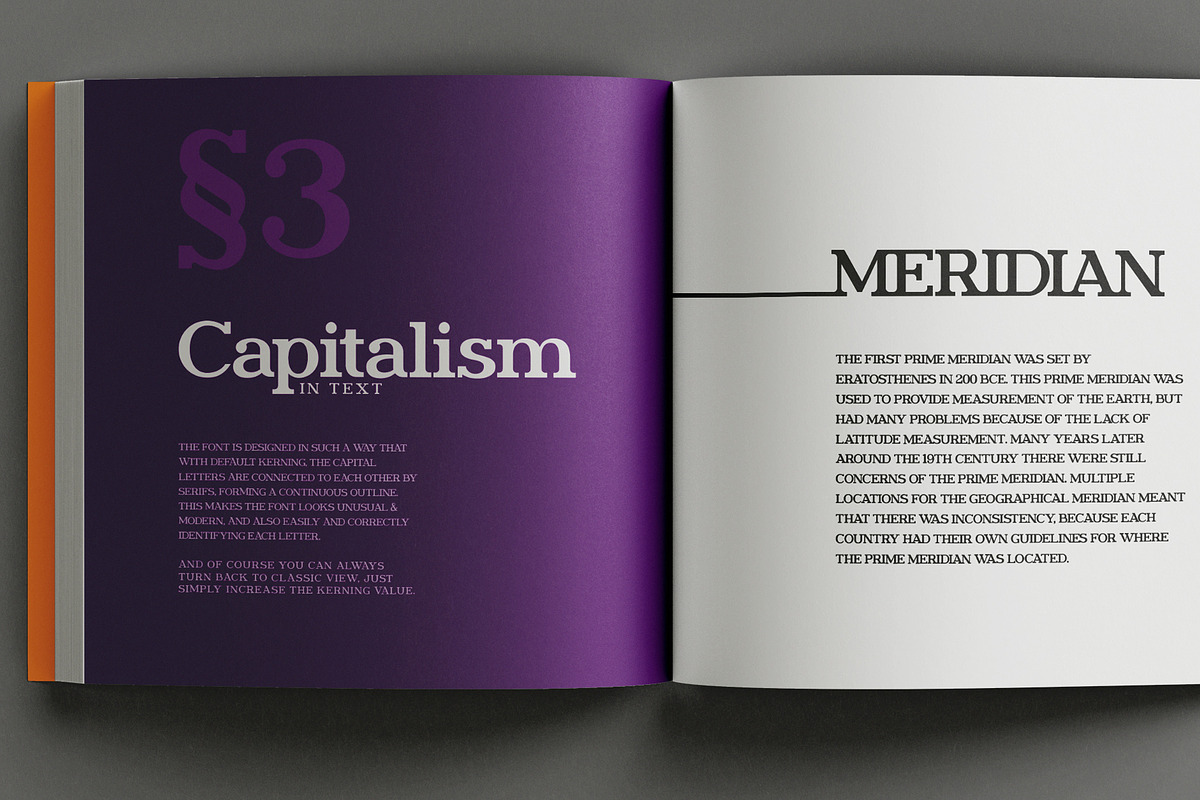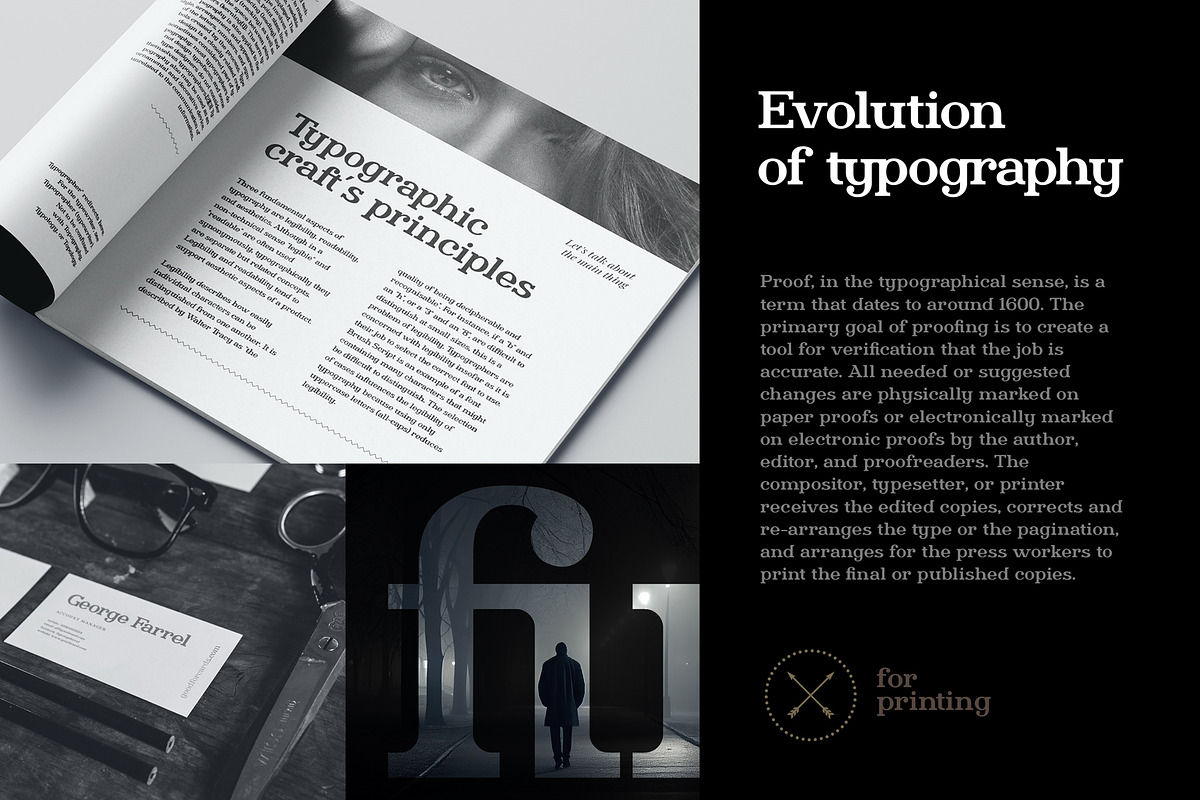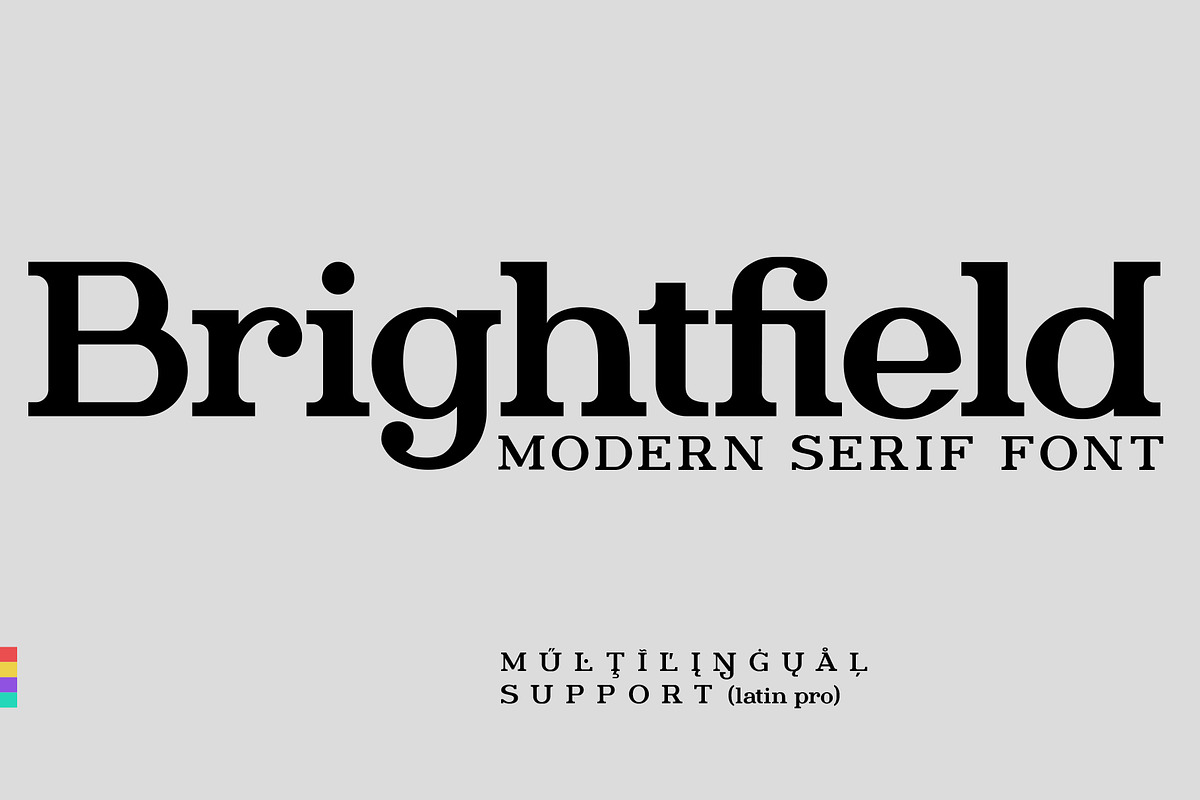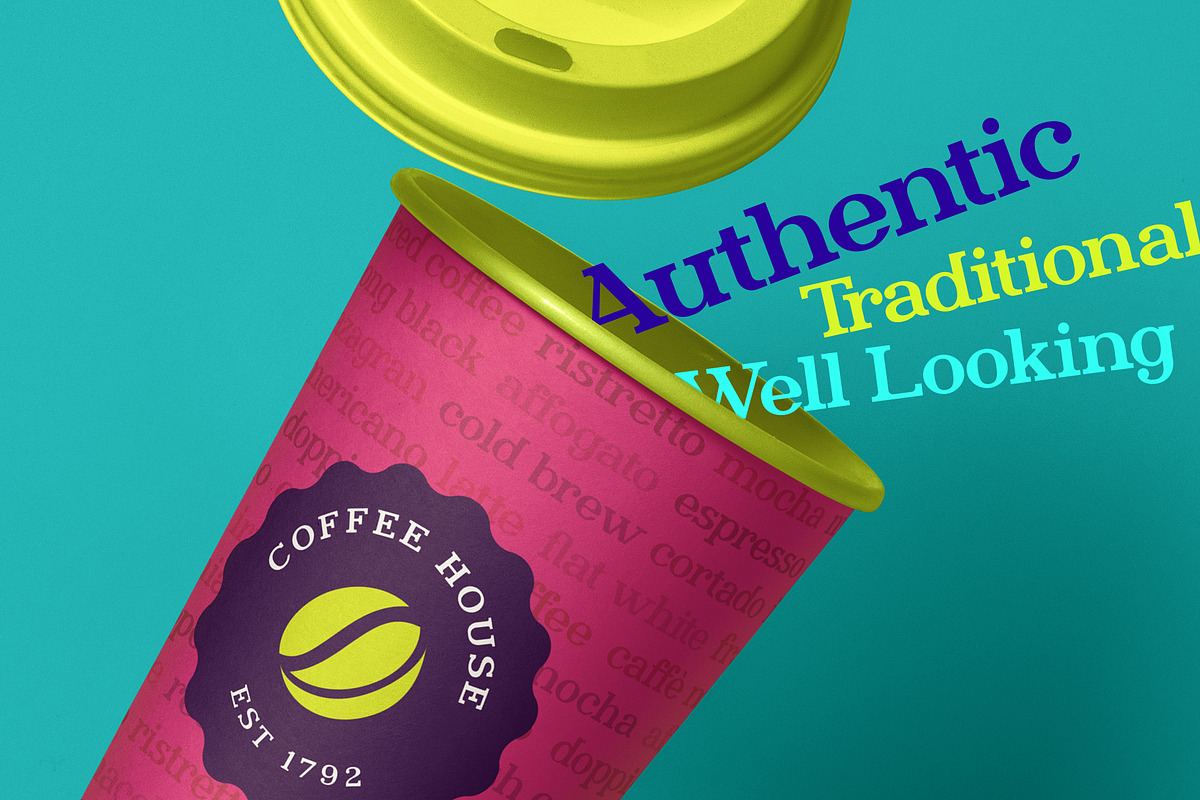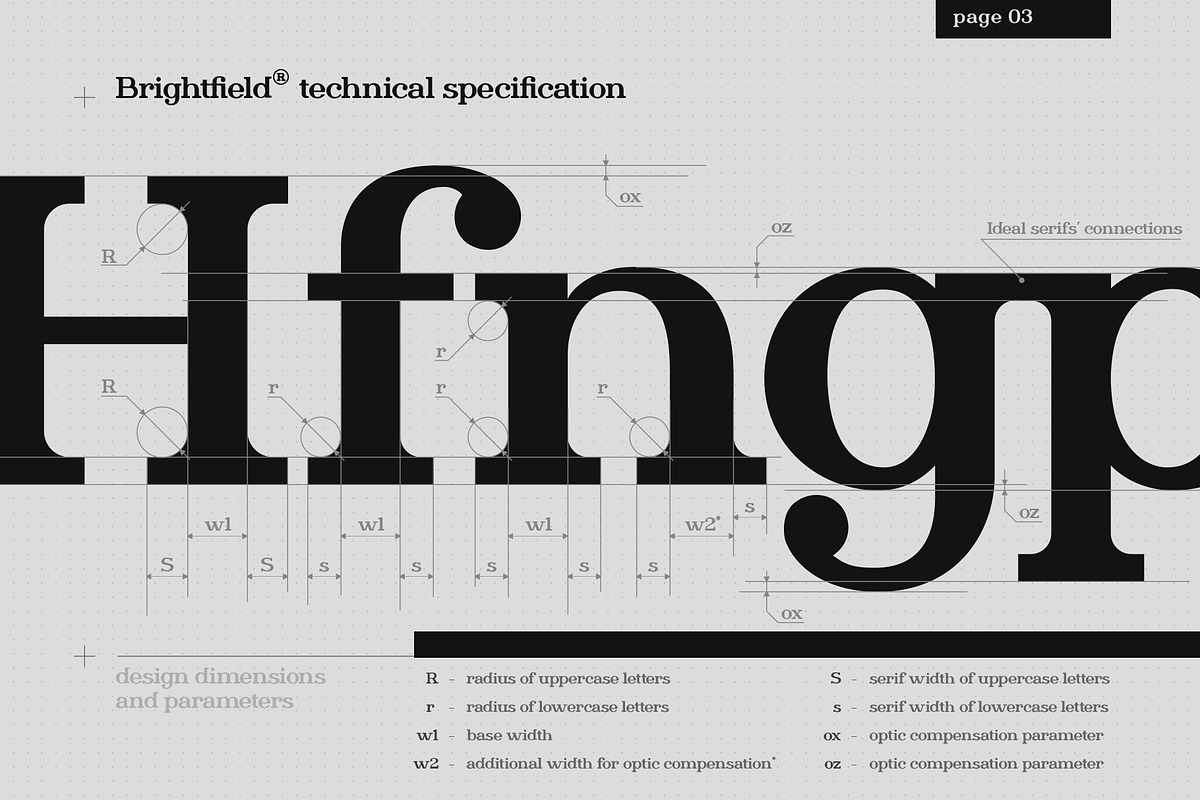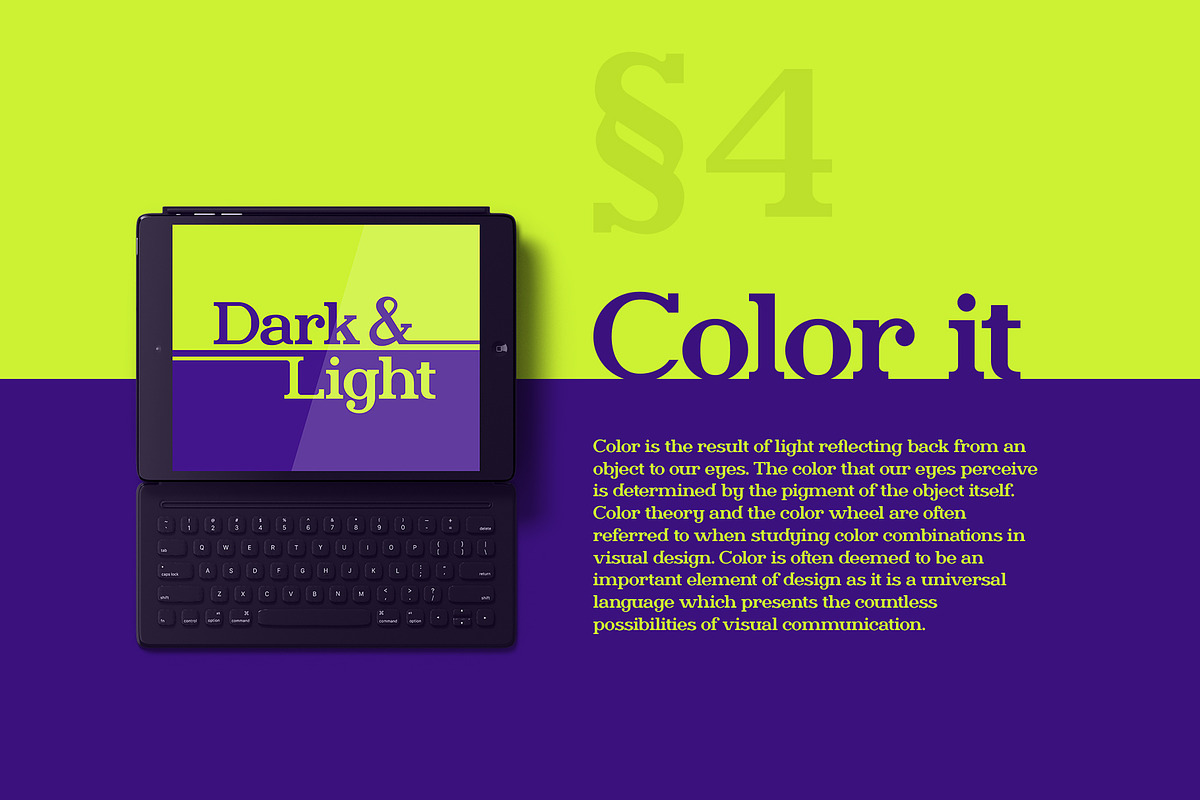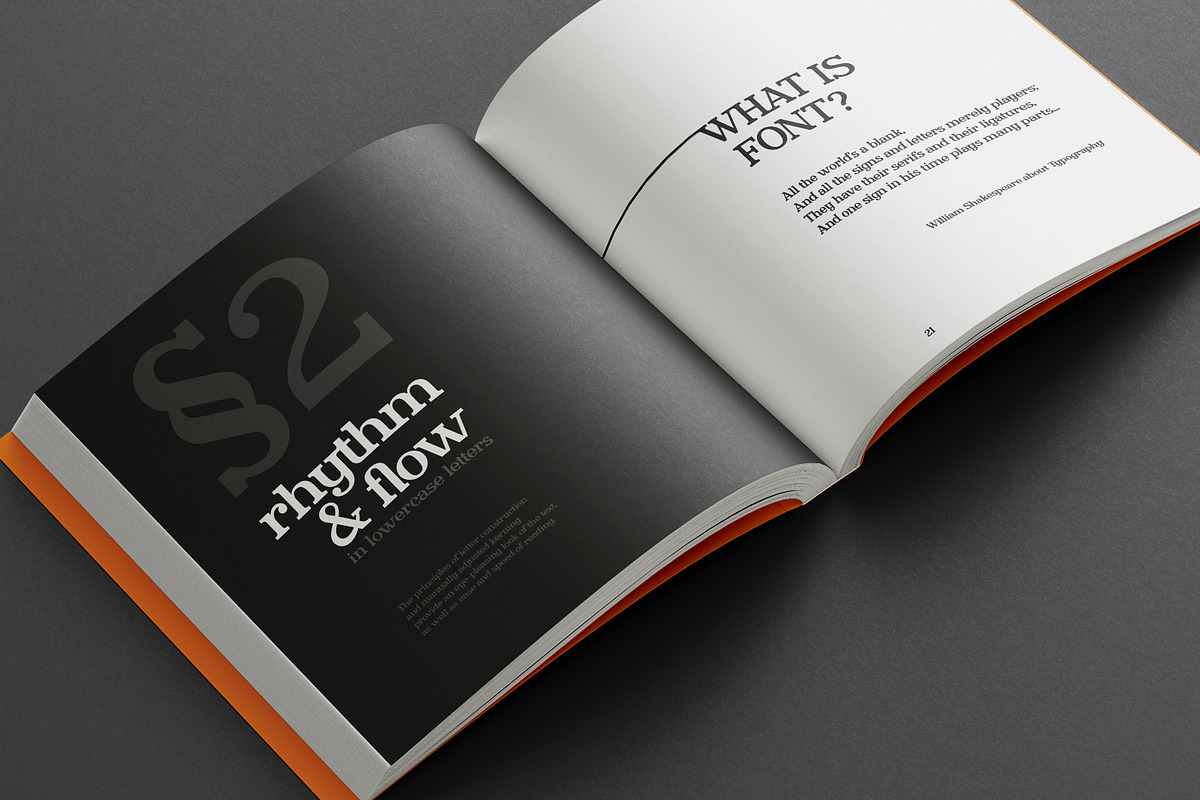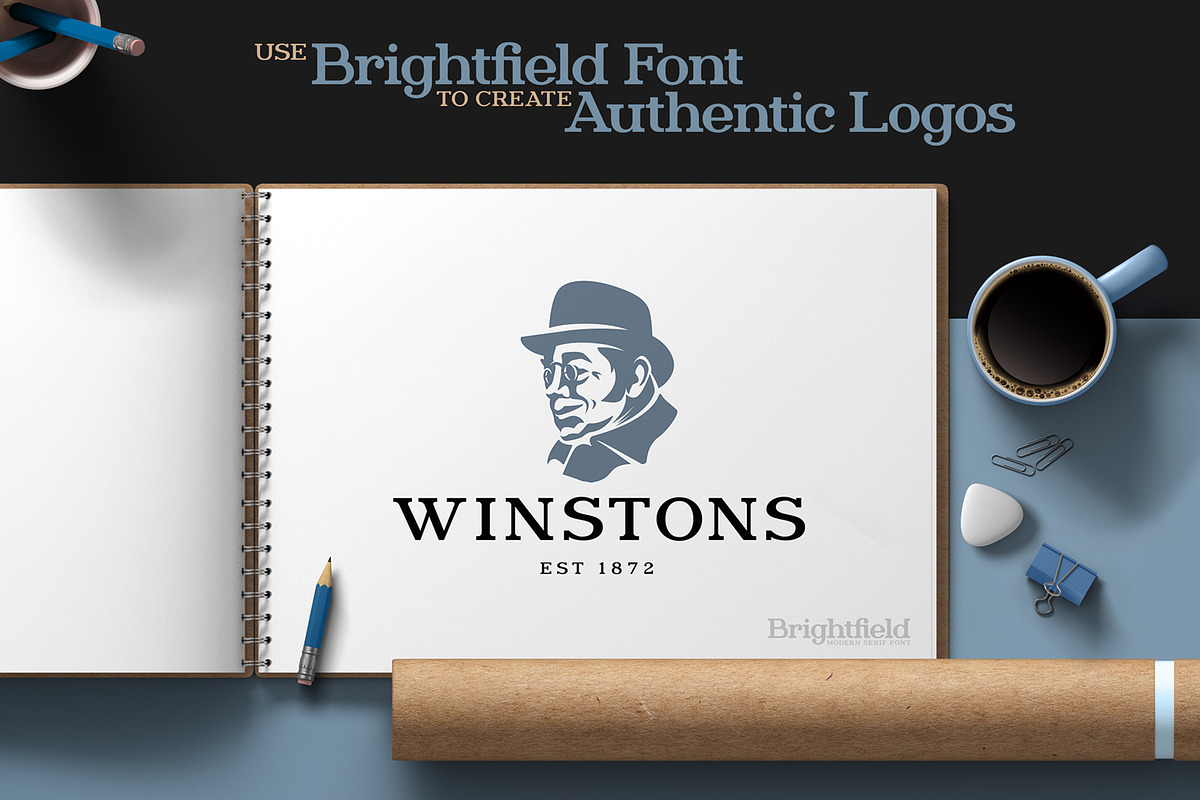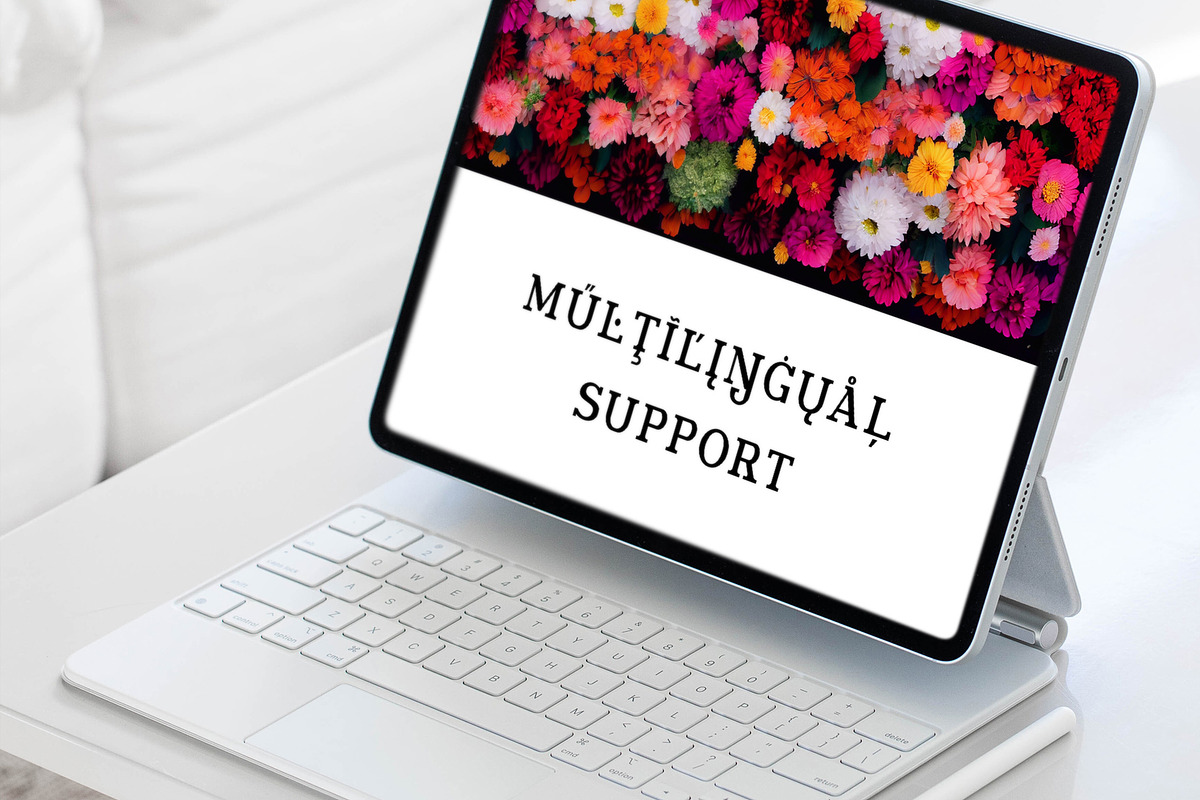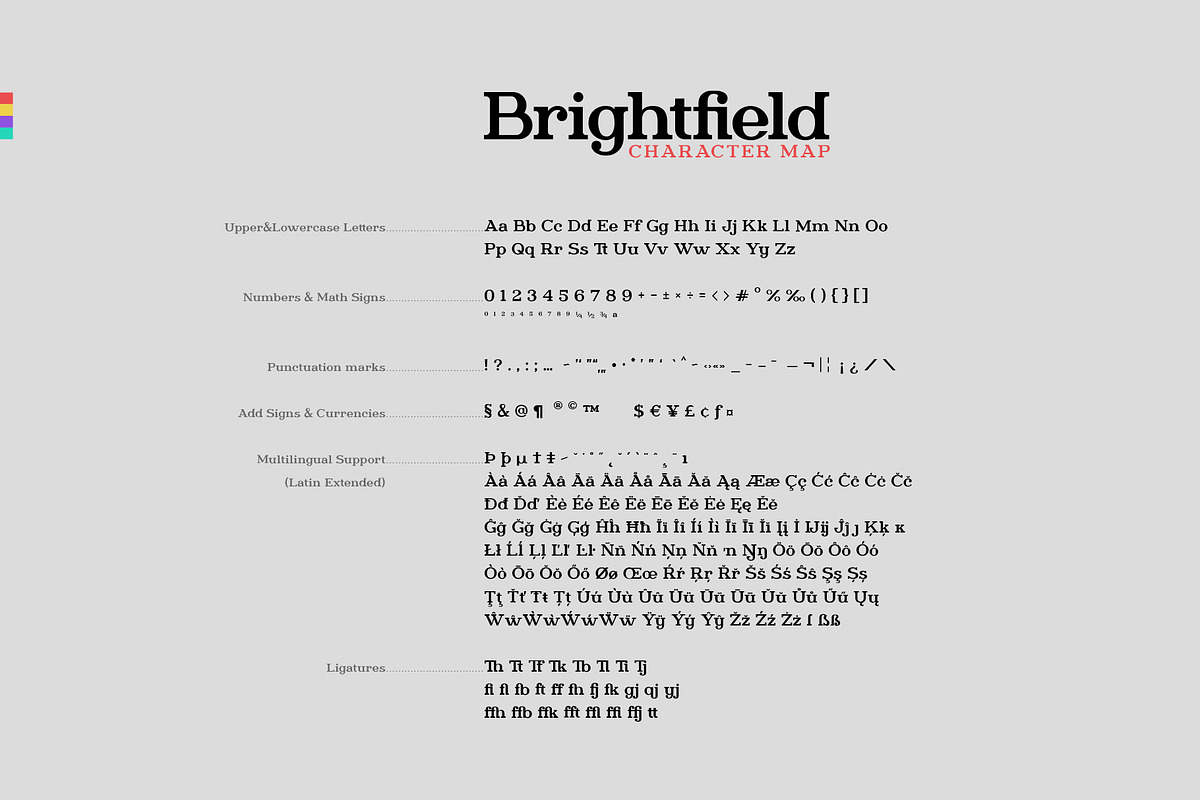
Brightfield Serif Font
Brightfield Font is classic and modern serif font carefully designed and well looking in lowercase and uppercase letters both.
The font is designed in such a way that with default kerning the capital letters are connected to each other by serifs, forming a continuous outline. This makes the classic font looks unusual & modern. And also easily and correctly identifying each letter. The Lowercase letters looks the same way, when connect to each other by serifs. Please see the large preview images to see how it works!